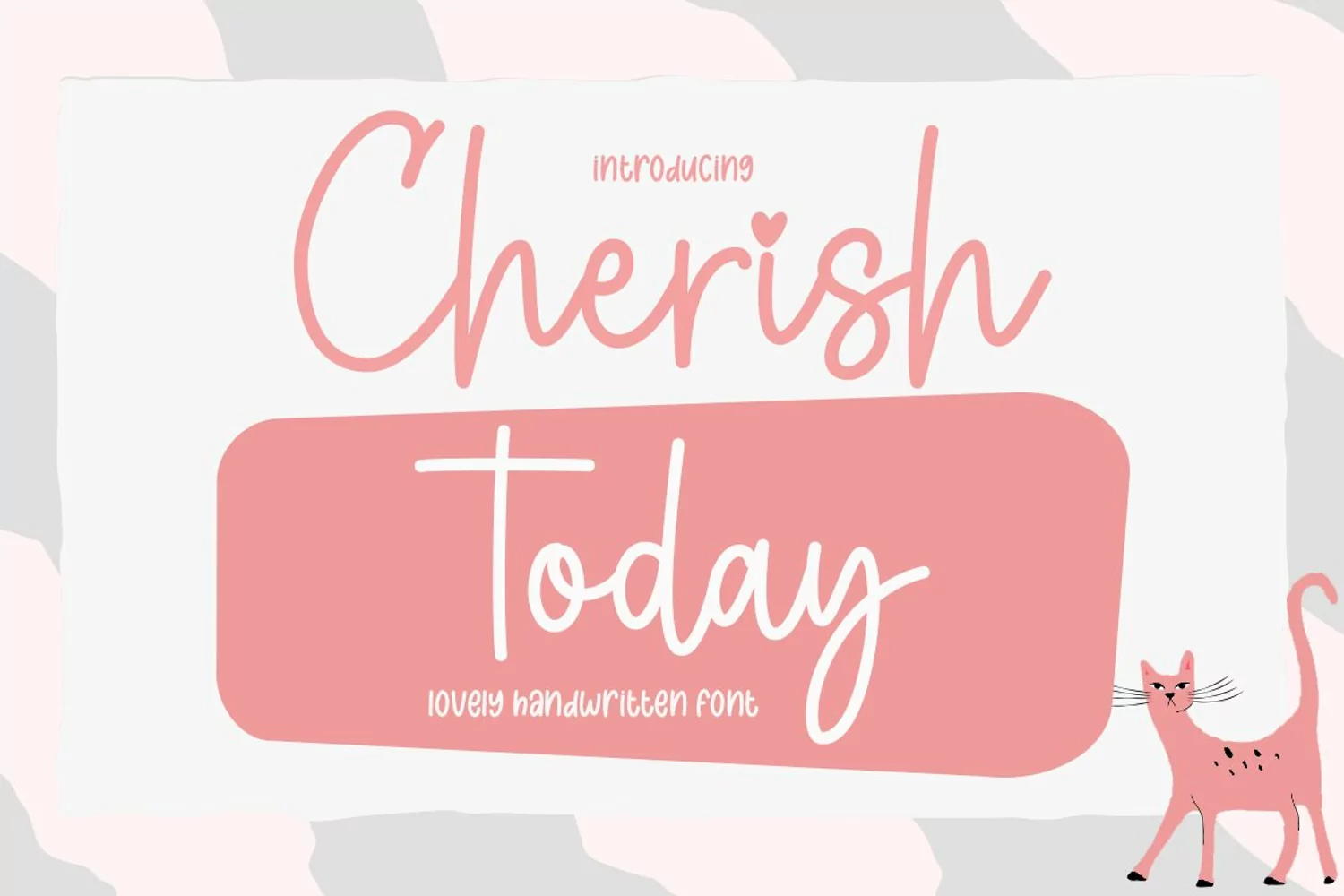
Cherish Today
Cherish Today is a thin-lettered and graceful script font. Trendy and stylish, this font will elevate any crafty project and idea!
By Graphix Line Studio